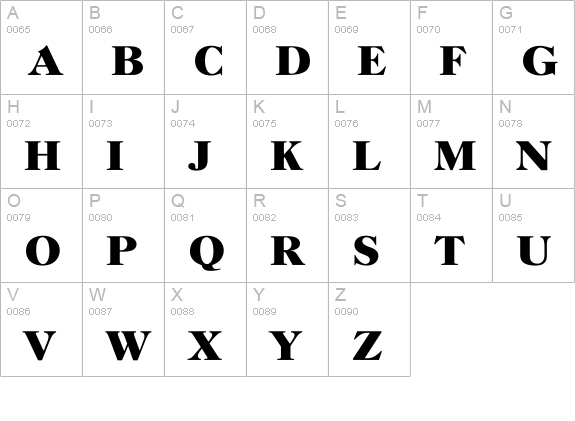
Horsha Bold is a strong, high-contrast variant in the Horsha typeface family \xE2\x80\x94 well suited to headlines, attention-grabbing titles, and strong calls-to-action.
Horsha Bold is a striking and modern font that is sure to make a bold statement in any design project. With its clean lines and strong presence, this font exudes confidence and power. The thick strokes and sharp angles give Horsha Bold a unique and contemporary look that is perfect for headlines, logos, and branding projects. What's even better is that Horsha Bold is available for free download at FontsMarket.com. Whether you're a designer looking to add a bold touch to your creations or a business owner wanting to make a strong visual impact, Horsha Bold is the perfect choice. Download it today and unleash the power of this bold and dynamic font in your projects.